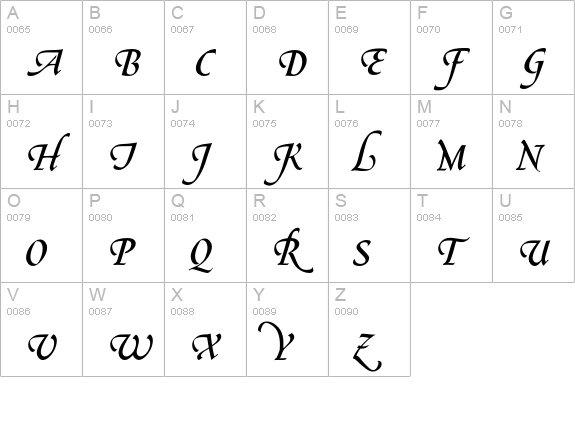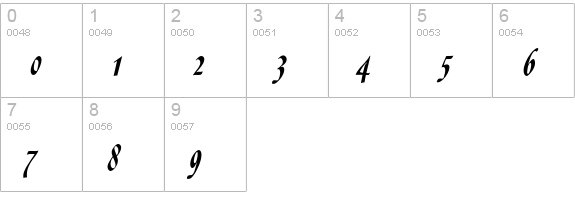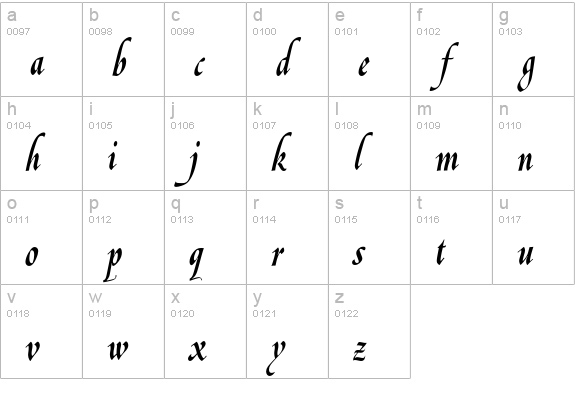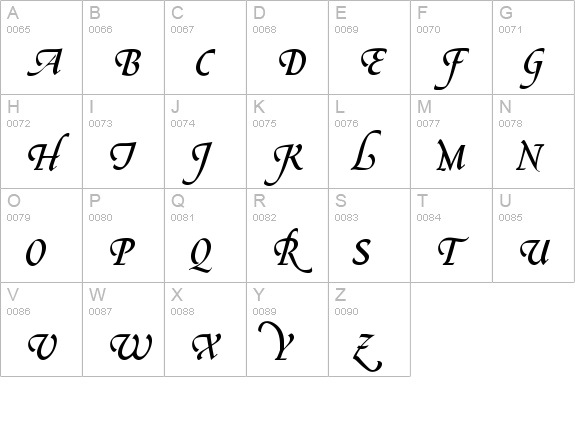
LeGriffeEF Font Details
LeGriffeEF font is a stunning typeface that exudes elegance and sophistication. Its timeless design, with its delicate curves and sharp edges, makes it a perfect choice for projects that require a touch of class. Whether used for invitations, logos, or headlines, LeGriffeEF font adds a sense of refinement and luxury. What makes LeGriffeEF font even more appealing is that it is available for free download at FontsMarket.com. This means that anyone can enjoy the beauty of this font without any cost. The creators of LeGriffeEF font understand the importance of accessibility and believe that everyone should have access to high-quality typefaces. With its extensive character set and versatile nature, LeGriffeEF font can be used in a variety of design projects. Its sleek and stylish appearance captures attention and leaves a lasting impression. The clean lines and balanced proportions of each letter ensure legibility, making it suitable for both print and digital mediums. Whether you are a professional designer or simply someone who appreciates the beauty of typography, LeGriffeEF font is a must-have in your collection. Its combination of elegance and ease of use sets it apart from other fonts. Download LeGriffeEF font for free at FontsMarket.com and elevate your designs to new heights of sophistication.